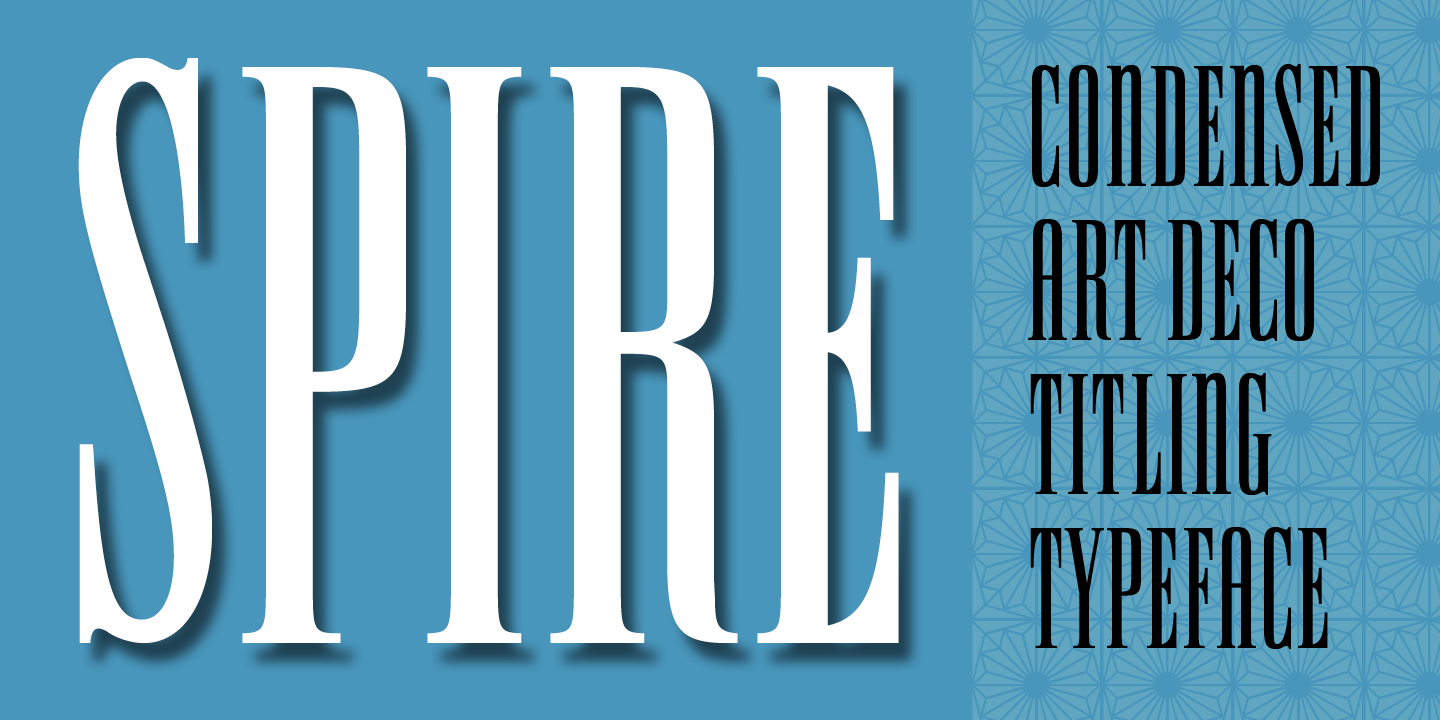
LTC Spire
Designed by Sol Hess, LTC Spire is a display serif font published by P22 Type Foundry.
SPIRE with alternate caps was designed by Lanston’s type director Sol Hess in 1937. Spire Roman was designed without lowercase. But it includes alternate rounded caps which transform this extra condensed “fat face” into more of an art deco titling face. Spire Roman has been used within department store logos, luxury hotel signage, perfumes, etc, etc.